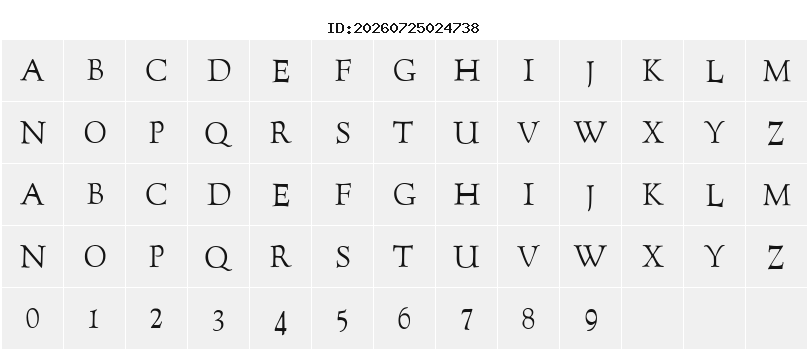
• Font Name: GoudyTwenty
• Description: Goudy Twenty is based on Forum Title, which is number 20 in "Goudy's Type Designs" from Myriade Press. It is an all caps font. A few of the type ornaments shown in "Goudy's Type Designs", and a couple of extra sets of brackets are also included.